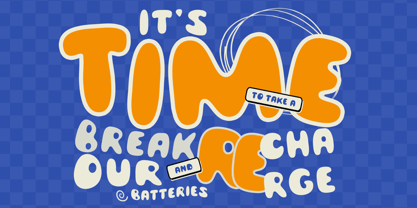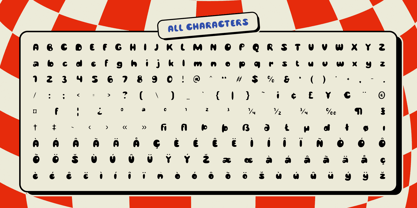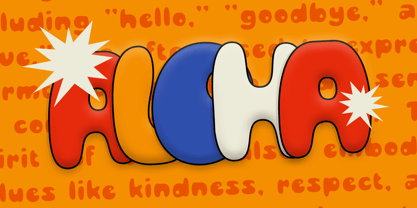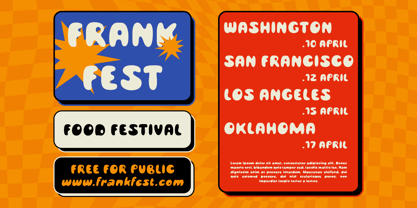
Bages Blur
by Craft Supply Co
The Bages Blur Font Family was designed by Trio Nazzar Saputra, Wahyu Hadi Yuana and published by Craft Supply Co. Bages Blur contains 2 styles and family package options. More about this family
Bages Blur Font: A Playful Display Font That Captures Joy
Charming Display Font with Thick Bubble Shapes
Bages Blur is a delightful display font that features thick bubble shapes, exuding a cute, funky, and cheerful impression. Its soft curves and adorable proportions create an inviting and playful aesthetic that draws the eye and lifts the spirit. This font is designed to celebrate happiness and creativity, making it an excellent choice for projects that aim to evoke a sense of joy and whimsy.
Dynamic Blur Effect for Engaging Visual Appeal
What sets Bages Blur apart is its unique blur effect, which adds a dynamic and engaging touch to its already captivating design. This effect enhances the font’s playful nature, giving it an animated quality that seems to leap off the page. The combination of rounded shapes and the blur creates a sense of movement, making the font feel lively and vibrant.
Versatile for Various Creative Applications
Bages Blur is incredibly versatile, making it perfect for a wide range of design applications. Whether used in posters, product packaging, promotional materials, or social media graphics, this font ensures that your message stands out while conveying a positive vibe. Its cheerful character and engaging design elements make it ideal for brands targeting a youthful audience or for any project that seeks to highlight fun and creativity.
Designers: Trio Nazzar Saputra, Wahyu Hadi Yuana
Foundry: Craft Supply Co